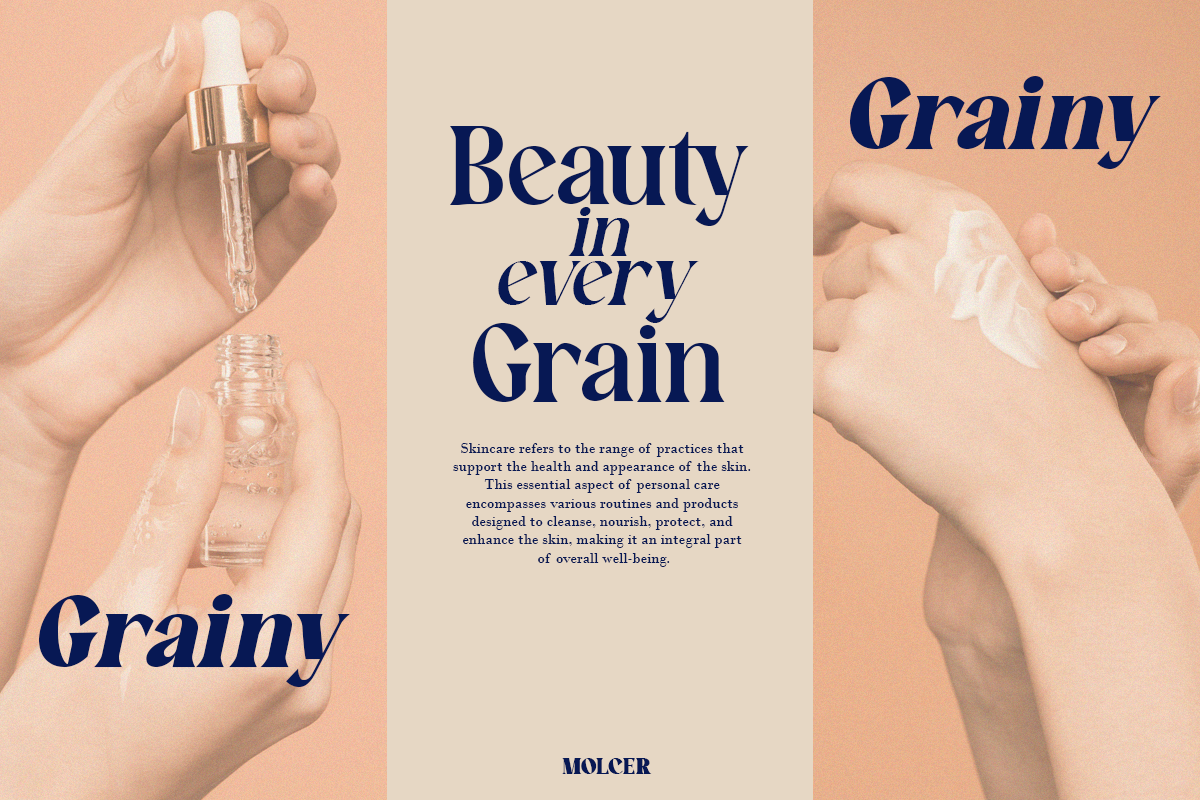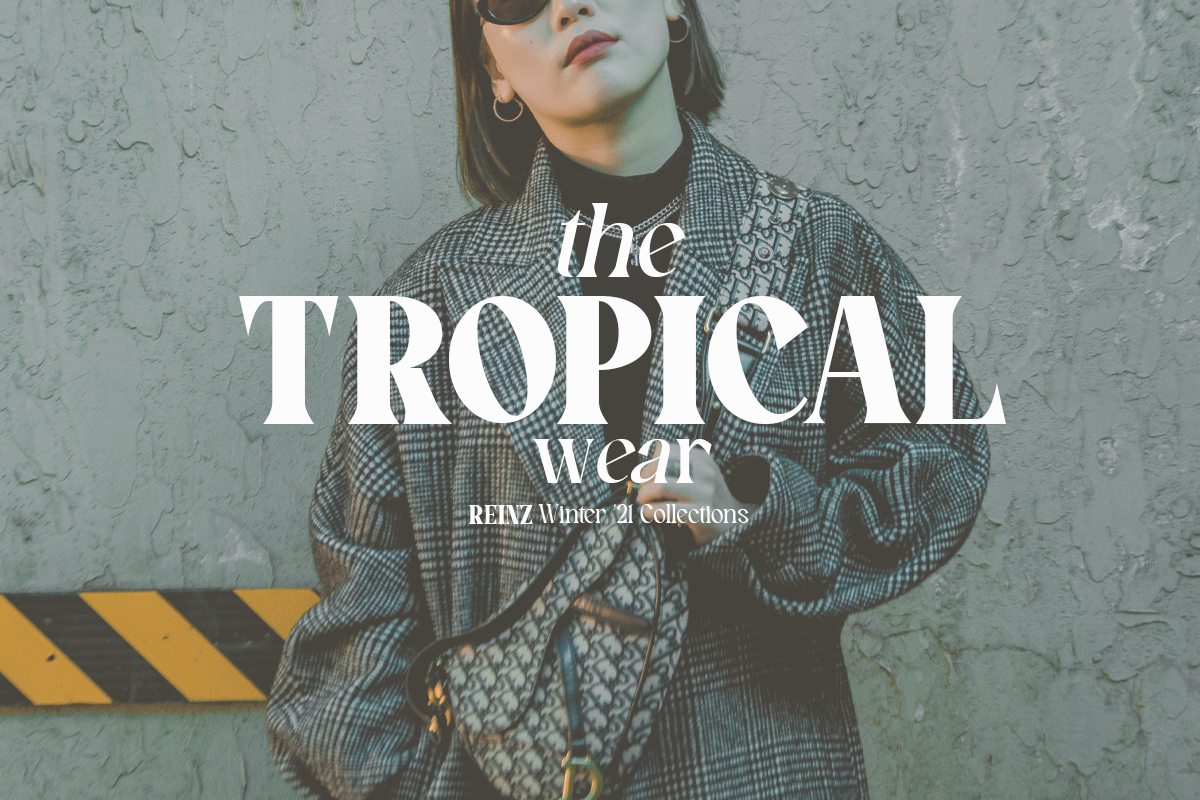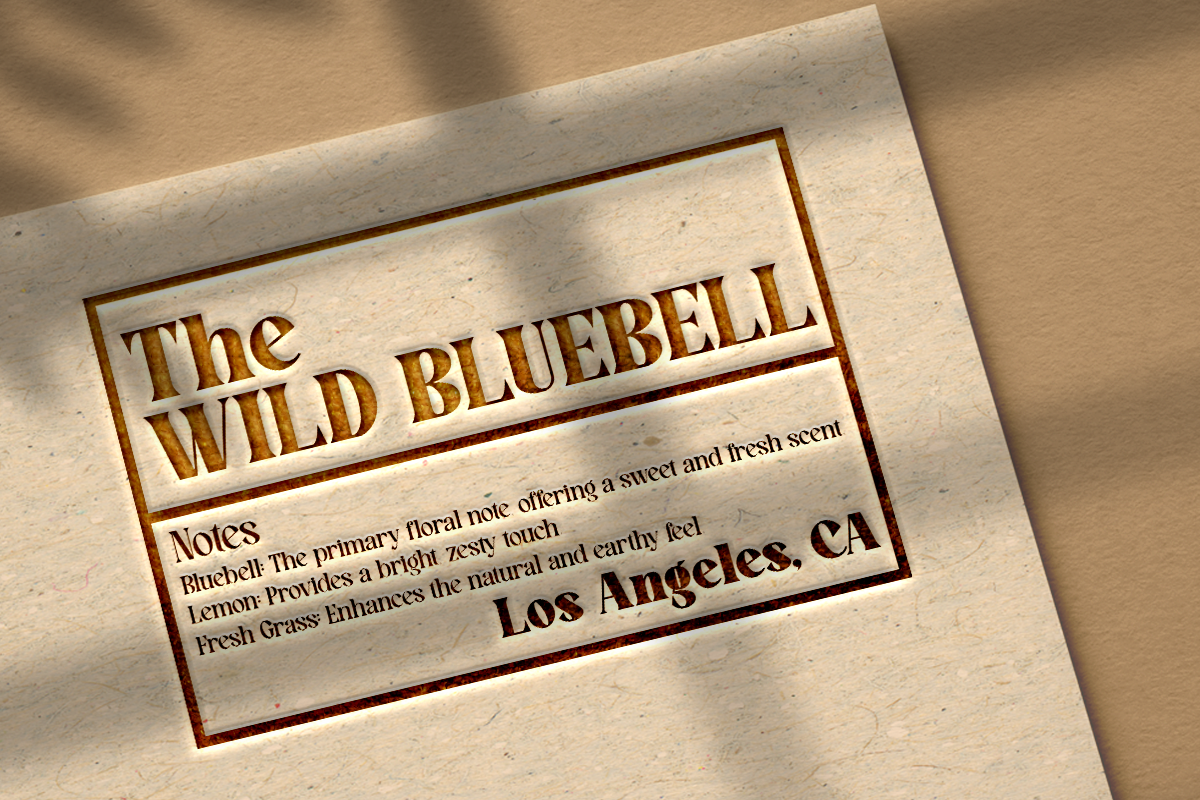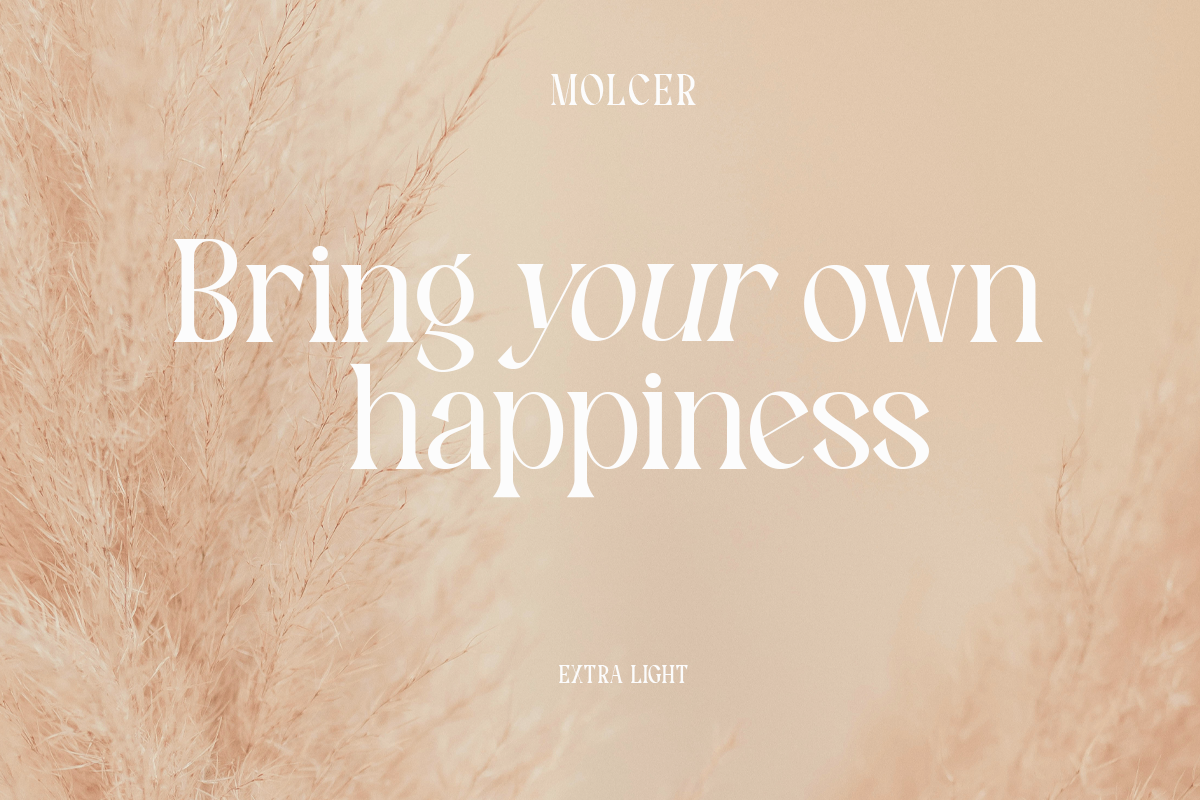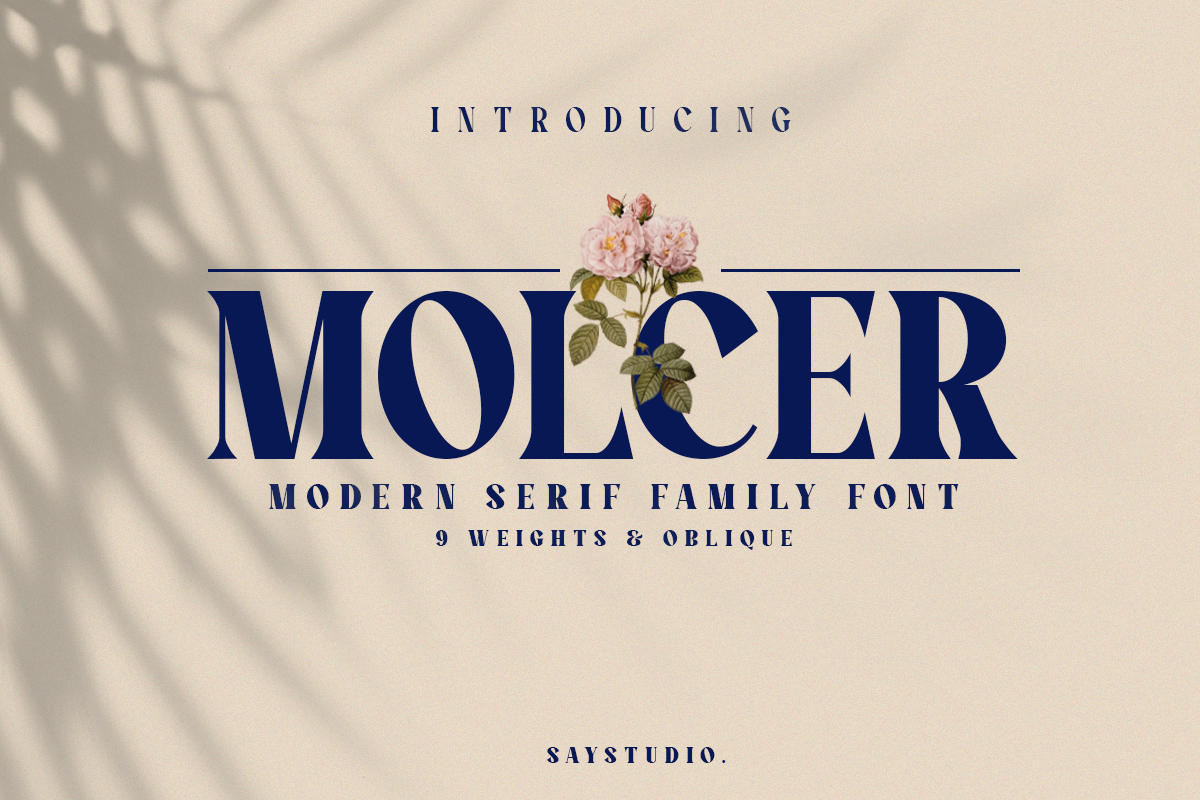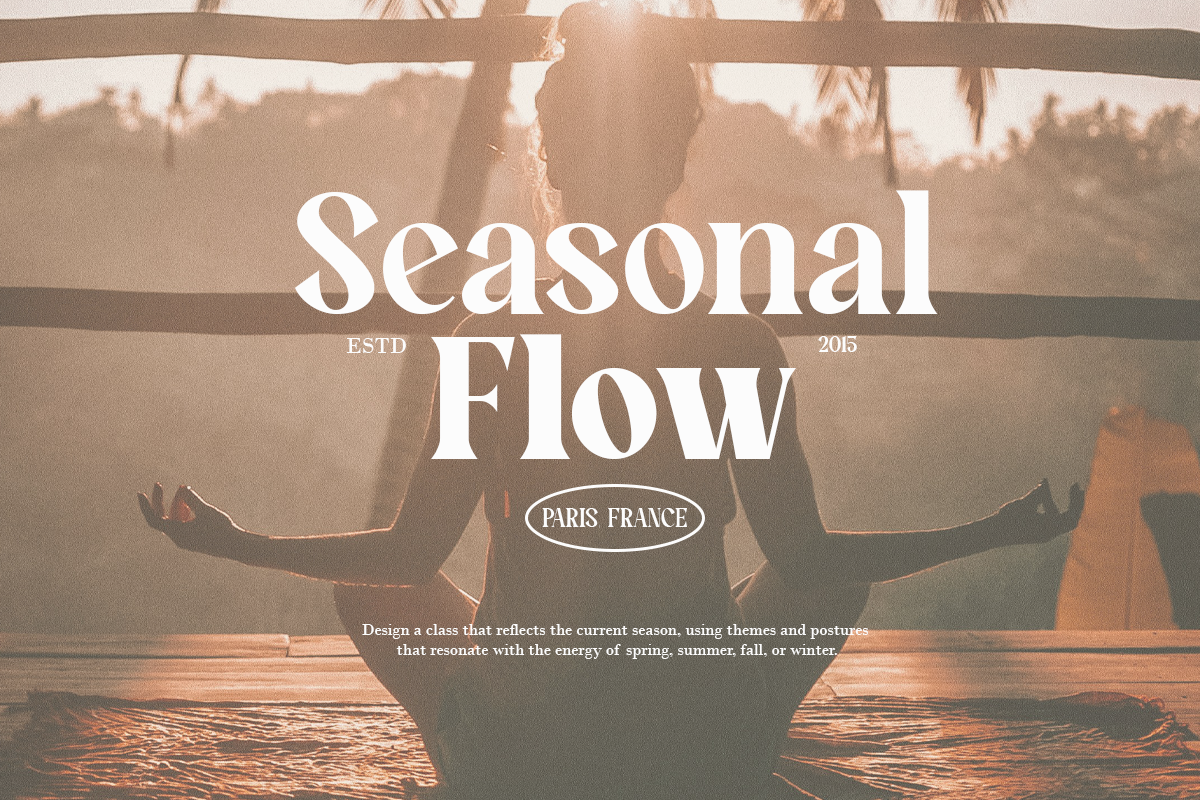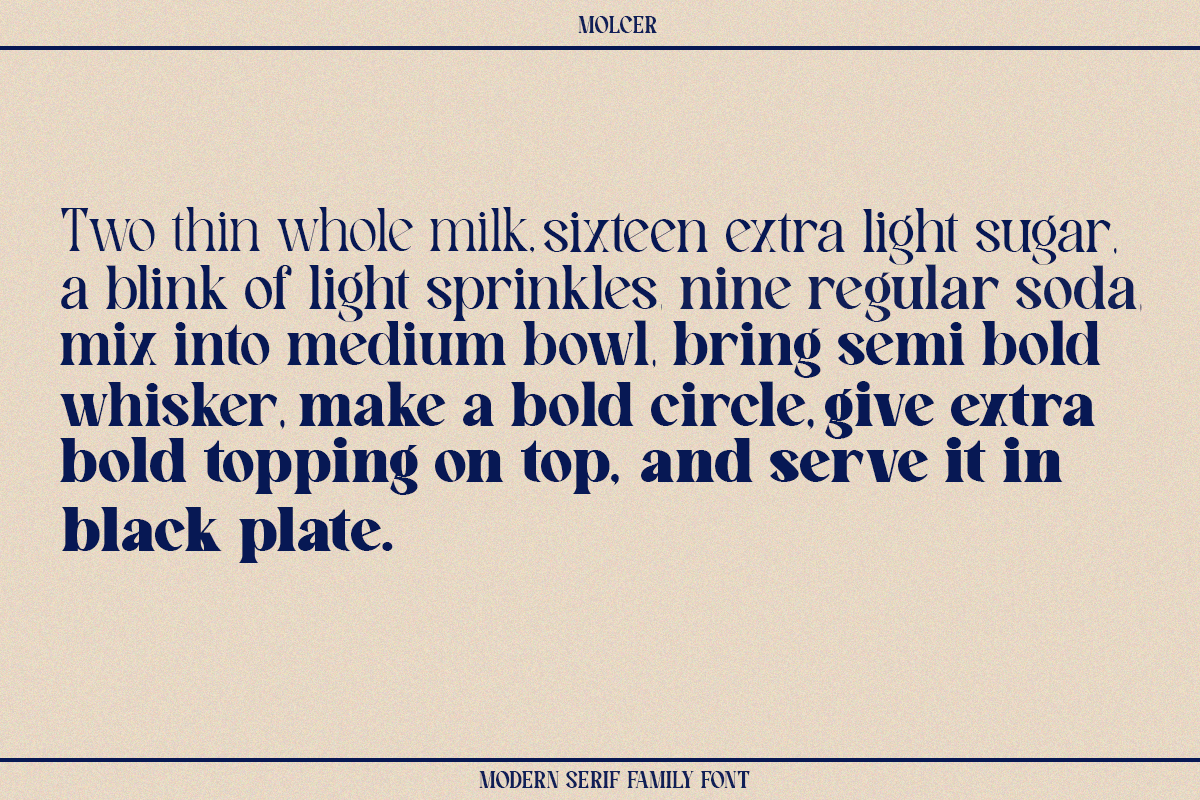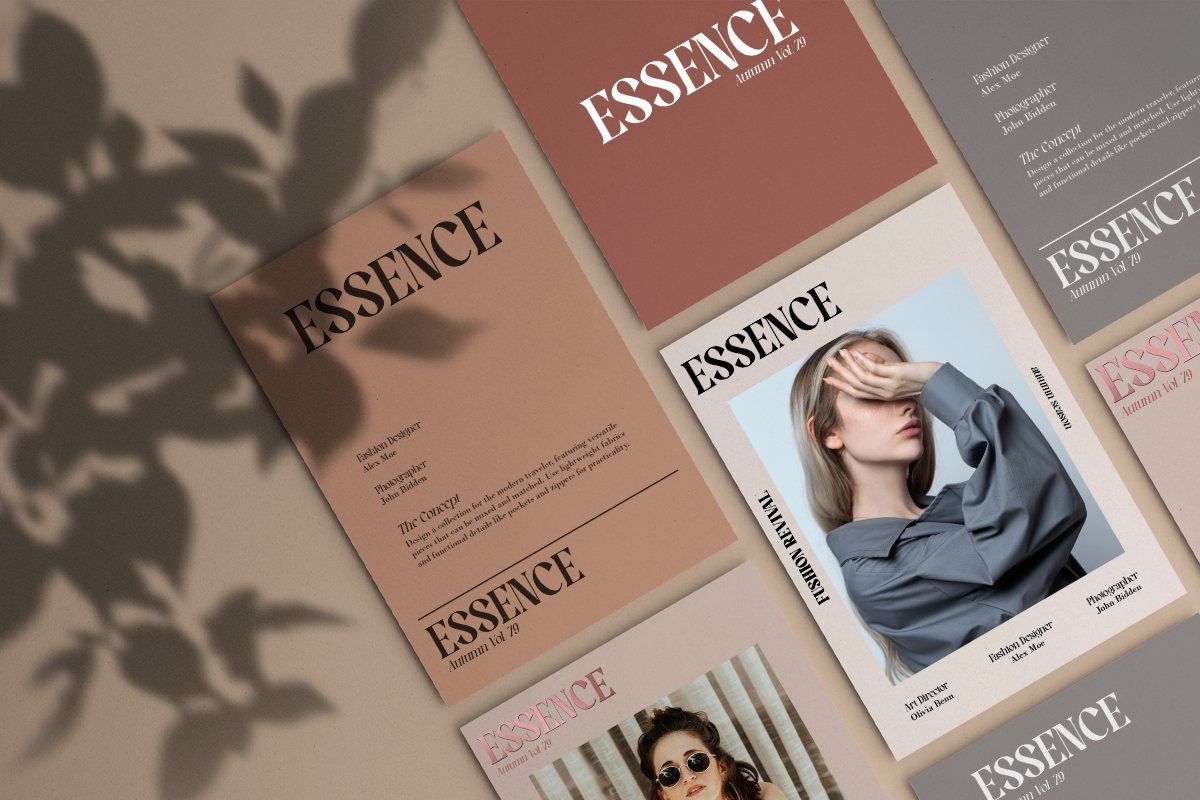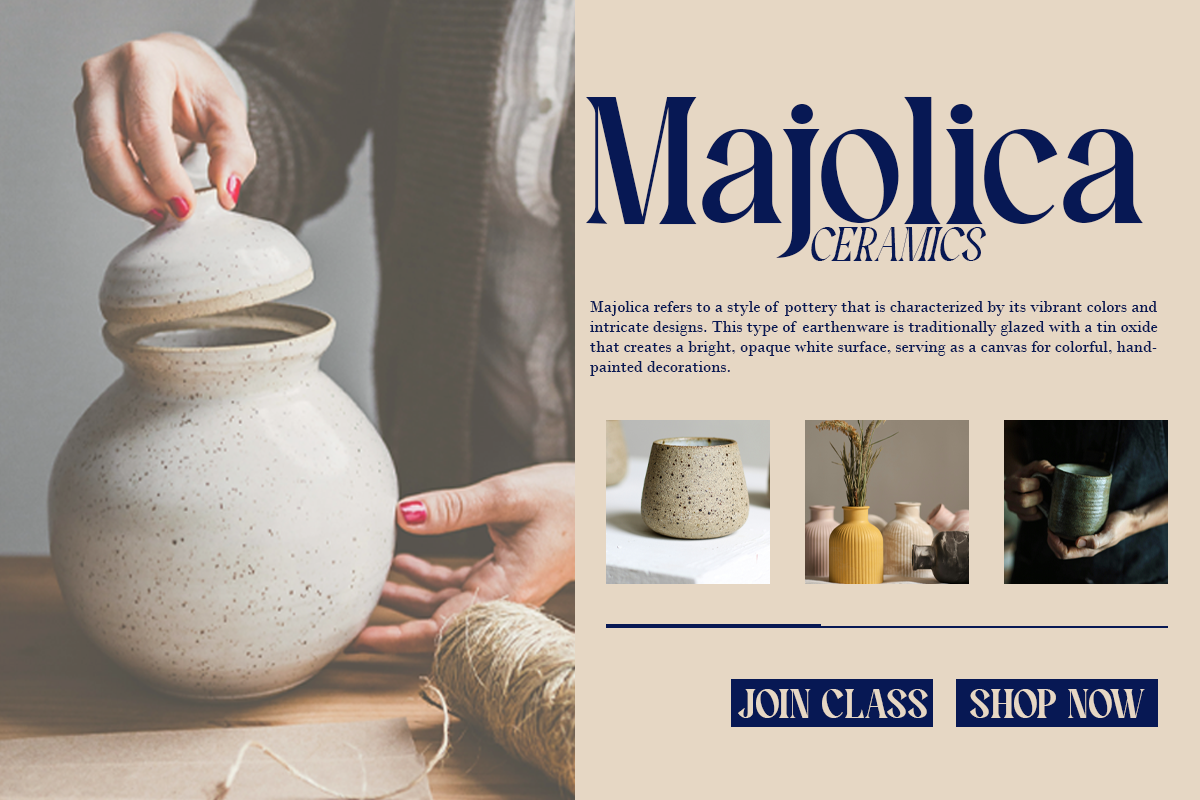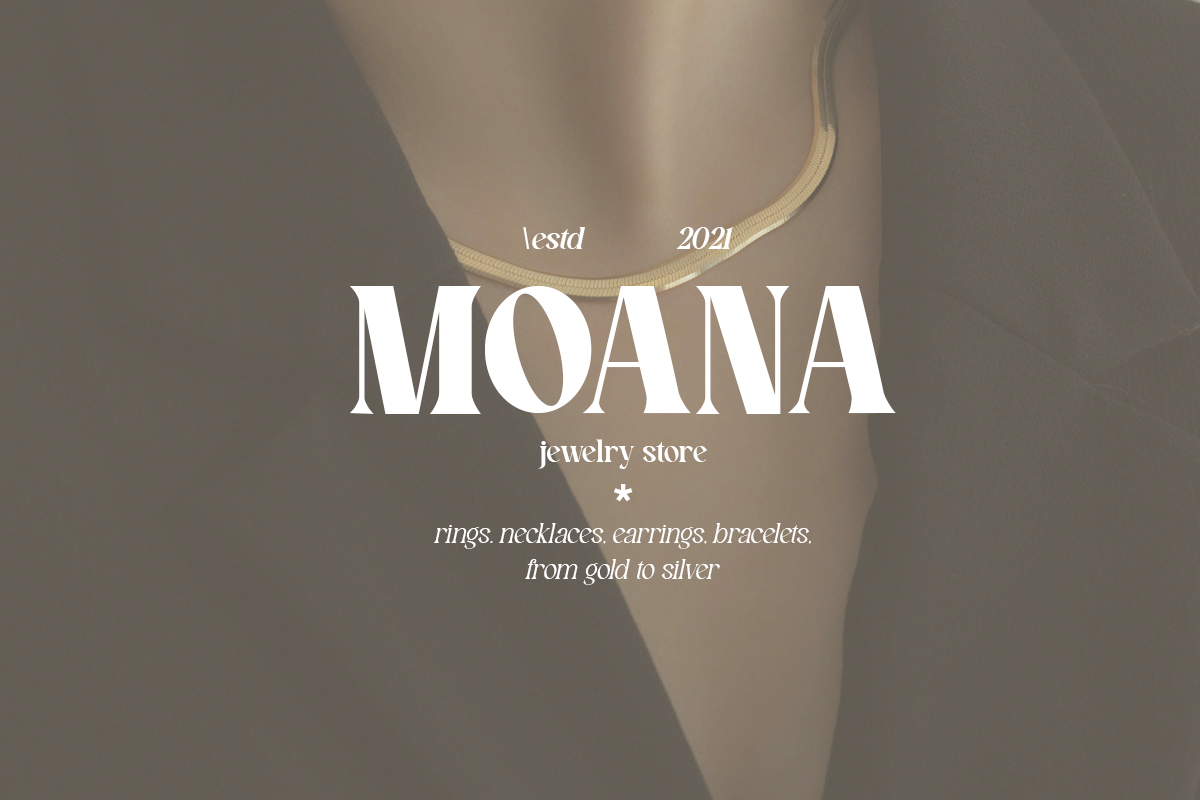
Molcer - Modern Serif Font
Molcer - modern serif family font is a versatile collection of typefaces designed to work harmoniously across various applications, making it perfect for everything from elegant headlines to small text. Molcer is ideal for branding, editorial design, packaging, and logo creation, this timeless typeface offers endless possibilities. Featuring a modern serif design with high contrast and a vintage chic aesthetic, Molcer includes nine fonts, in both upright and italic that share a unique blend of soft terminals and sharp cuts. With a focus on usability, Molcer serves as a bold design choice and an effective communicator.